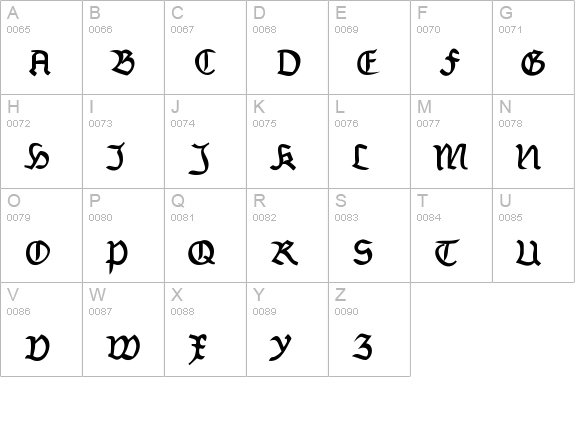
Burtinomatic-DemiBold is a sub-bold, structured variant in the Burtinomatic typeface family \xE2\x80\x94 well suited to sub-headlines and emphasised passages.
Burtinomatic-DemiBold is a bold and impactful font that commands attention with its strong lines and modern aesthetic. This versatile typeface exudes confidence and sophistication, making it perfect for a wide range of design projects. Its distinctive character and readability make it a popular choice for headlines, posters, branding, and more. What sets Burtinomatic-DemiBold apart is not only its striking appearance but also the fact that it is available for free download at FontsMarket.com. This means that you can easily access this high-quality font and use it in your projects without any cost. Whether you're a designer looking to elevate your creations or a business owner seeking a unique font for your branding, Burtinomatic-DemiBold is sure to make a lasting impression. Download it today and let your creativity soar with this exceptional typeface.